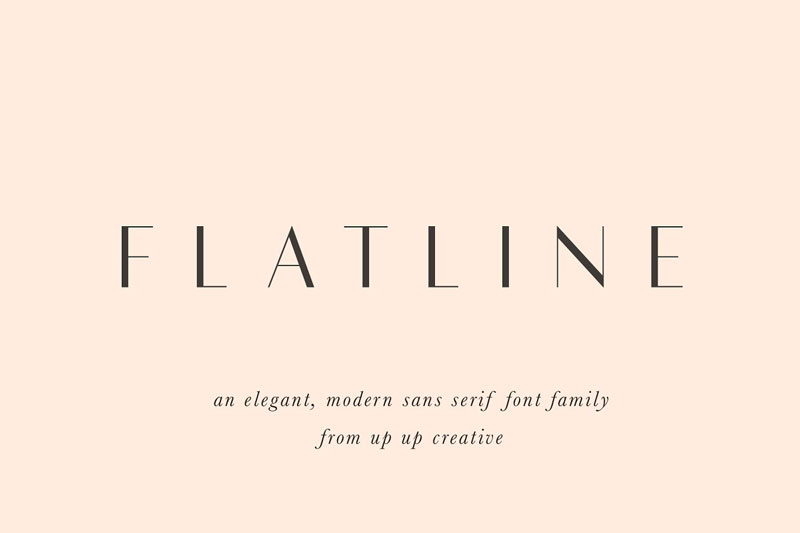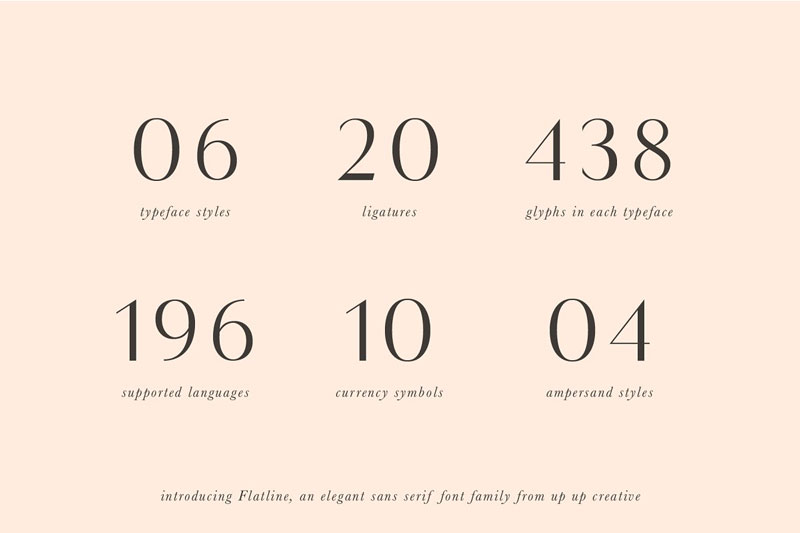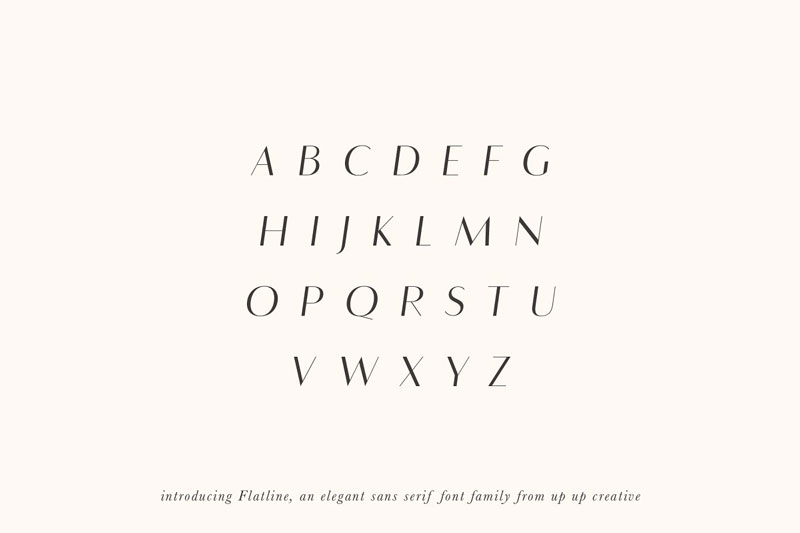
Flatline Sans Complete Font Family
Flatline Sans Complete Font Family comes with 3 variant styles (Bold, Semibold, Regular) also support OpenType features include 20 standard, three-figure sets, a small number of character variants, four ampersand styles, and multilingual support.